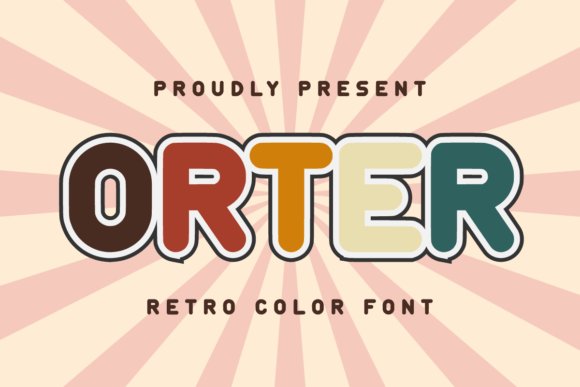
Introducing Orter Font, the ultimate colorful font that will take your creative projects to the next level! Developed by the experts at Letterayu, Orter Font is a retro-style font that is perfect for adding a pop of color to your designs.
Whether you're working on printing, stickers, book covers, DIY projects, logos, or any other crafty idea, Orter Font will make your work stand out. With its fun and playful vibe, this font is sure to capture the attention of anyone who sees it.
Orter Font is not only visually appealing, but it is also incredibly versatile. You can use it for anything from branding to social media posts, and it will look amazing every time. Plus, it comes with a variety of characters and symbols, allowing you to customize your designs even further.